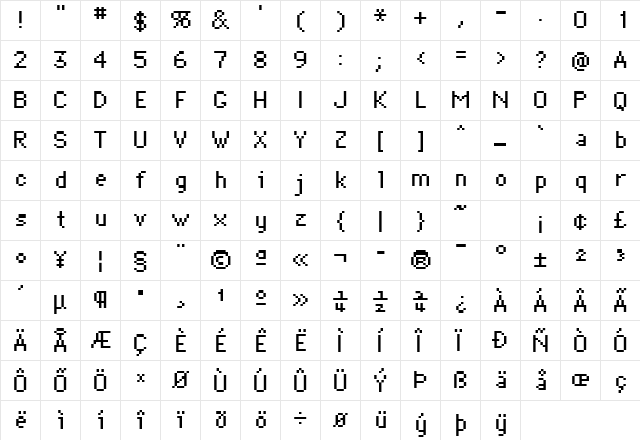
New Geneva Nine ICG Regular
Design Context for New Geneva Nine ICG Typeface
New Geneva Nine ICG takes a measured approach to typography — its balanced proportions and neutral character make it a reliable workhorse for both digital and print work.